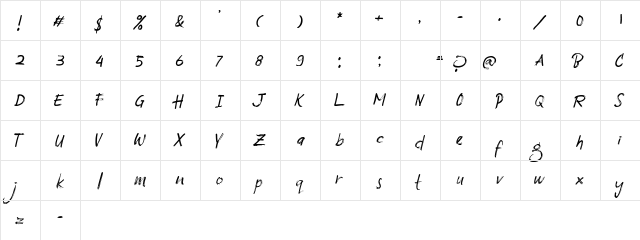
South Baggreg (Demo) Regular
Design Context for South Baggreg (Demo) Typeface
South Baggreg (Demo) is a composed and adaptable typeface that performs quietly and consistently across a wide range of design contexts.